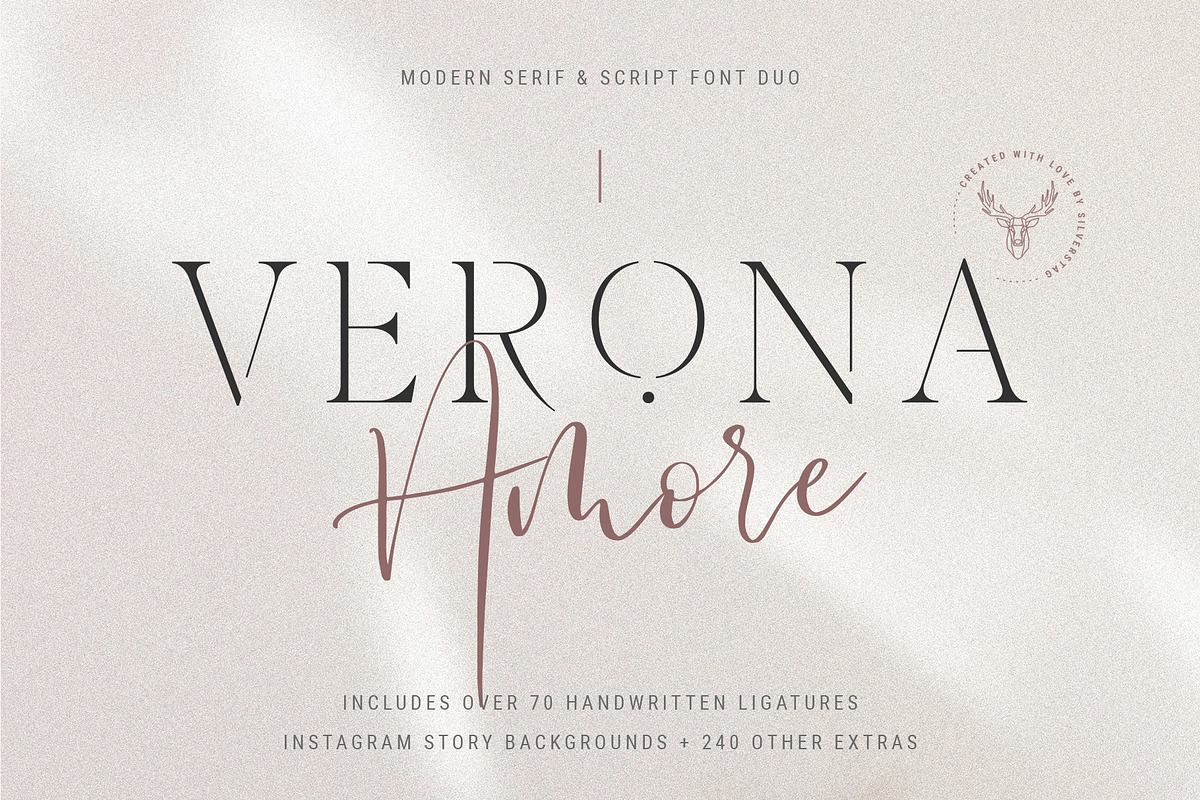
Verona Amore Font Duo & Extras Free Download is an elegant and versatile font bundle that combines two beautiful fonts with additional extras to elevate your designs. The duo includes a graceful script font and a complementary serif font, perfect for creating sophisticated logos, invitations, branding, and more. The included extras add decorative flourishes and unique touches, allowing you to create stunning, personalized designs with ease. Whether you're working on a wedding invitation, a luxury brand, or a creative project, Verona Amore Font Duo & Extras Free Download gives you the opportunity to experiment with its elegant style in personal projects before purchasing a commercial license. Add elegance and versatility to your designs with this beautifully crafted font duo and its stylish extras.